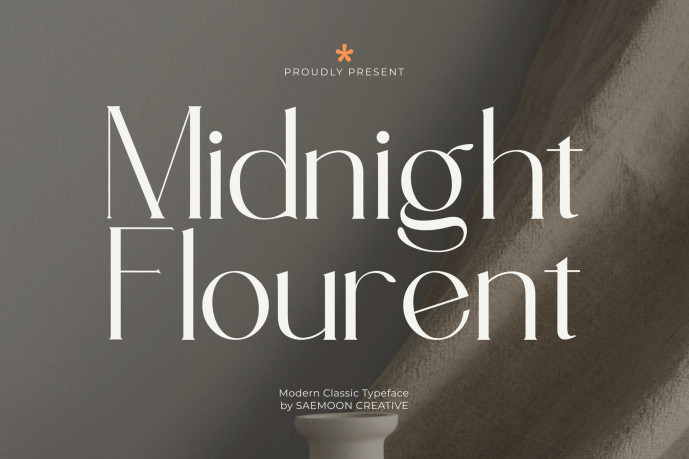
Midnight Florent Font
Midnight Flourent Font is a refined serif typeface that combines modern elegance with timeless, classic details. Its tall, slender letters and gentle curves create a luxurious visual rhythm, while subtle, high-contrast strokes lend it a sophisticated, editorial character. Unique letterforms such as g, r, and t add a distinctive artistic touch, ideal for designers seeking a typeface with personality and high appeal.
This font is ideal for branding, magazine layouts, logo design, skincare packaging, store promotions, wedding invitations, and social media templates that aim for an elegant and graceful aesthetic. Midnight Flourent offers a perfect balance between legibility and expressiveness, making it versatile for display and headline use.